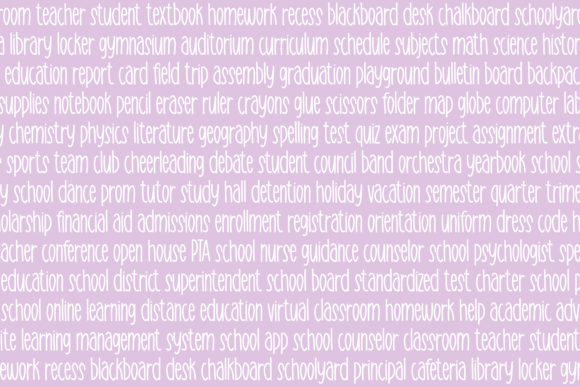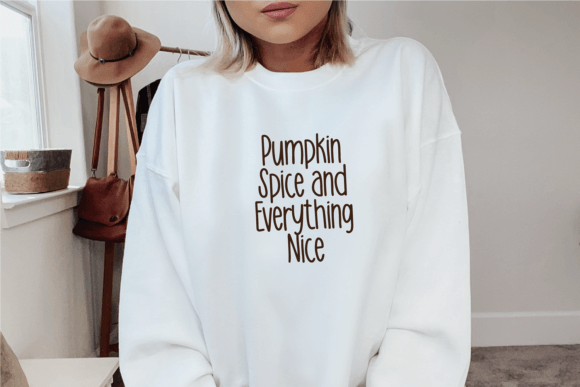
Introduction to Planning Weekend Font
Have you ever sat at your desk, staring blankly at a blank sheet of paper, wondering how to bring your creative project to life? We’ve all been there, right? But what if you had the perfect tool to help spark your creativity and make your ideas shine? Enter the Planning Weekend Font, a beautiful and easy-to-read handwriting font that’s perfect for casual designs.
With its clean lines, simple design, and modern look, the Planning Weekend Font is a valuable resource for designers looking to add a touch of personality to their projects. Whether you’re creating invitations, quotes, or journals, this font is sure to give your designs a friendly and approachable feel. And the best part? It’s a free download, making it an accessible and high-quality design resource for creatives of all levels.
Key Features of Planning Weekend Font
- High-quality design: Planning Weekend Font is designed to provide a unique and stylish touch to any creative project, making it a valuable design resource.
- Perfect for creative projects: This font is ideal for use in creative projects, such as graphic design, digital art, and advertising, where a unique and eye-catching font is required.
Honest Review: Planning Weekend Font
As a designer, I’m always on the lookout for high-quality design resources that can elevate my creative projects. The Planning Weekend Font caught my attention with its clean and modern aesthetic, making it perfect for planners, journals, and other organized enthusiasts.
- ✨ Clean and modern design that’s perfect for planners and journals
- ✨ High-quality font that’s crisp and clear
- ⚠️ Limited font styles, which may not be suitable for complex designs
- ⚠️ May not be as versatile as other fonts, making it less suitable for certain creative projects
Overall, I’d say the Planning Weekend Font is a great resource for designers who need a clean and modern font for planners, journals, and other organized projects. While it may have some limitations, its high-quality design and free download make it a worthwhile addition to any design library.
Planning Weekend Font
The Planning Weekend Font is a free, high-quality design resource that can help you take your creative projects to the next level. With its transparent background and clean, modern design, this font is perfect for creating visually appealing graphics, presentations, and documents.
Tips for Getting the Most Out of the Planning Weekend Font
To get the most out of the Planning Weekend Font, use it in conjunction with other design resources, such as images and graphics. You can also experiment with different font sizes and colors to create a unique and visually appealing design.
Common Use Cases for the Planning Weekend Font
The Planning Weekend Font is perfect for a wide range of creative projects, including presentations, documents, social media posts, and graphics. It’s also a great choice for designers and marketers who want to create high-quality, professional-looking designs.